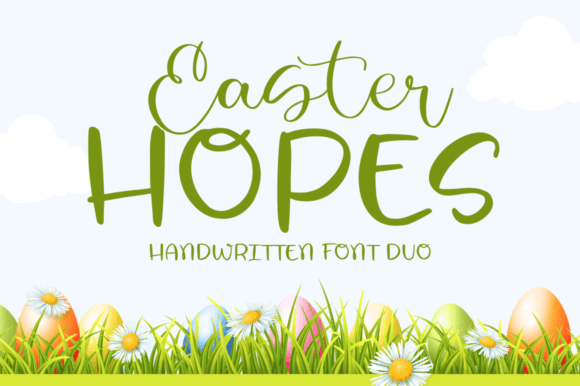
Easter Hopes Font: Elevate Your Designs with Whimsy and Elegance
Are you looking for a font that can add a touch of whimsy and elegance to your designs? Look no further than the Easter Hopes Font, a charming handwritten font duo that is perfect for a variety of projects. In this article, we’ll explore the features and benefits of Easter Hopes, and show you how to make the most of this beautiful font duo.
Introducing Easter Hopes Font
Easter Hopes is a handwritten font duo that consists of two complementary styles: a playful script font and a sophisticated handwritten font. This duo is designed to bring a touch of whimsy and elegance to your designs, making it perfect for a variety of projects, including invitations, cards, branding, and more.
The Easter Hopes Font duo is characterized by its unique and charming lettering style, which is both playful and sophisticated. The playful script font is perfect for adding a touch of whimsy to your designs, while the sophisticated handwritten font is ideal for creating elegant and refined designs.
Key Features of Easter Hopes Font
- Handwritten font duo: Easter Hopes consists of two complementary styles: a playful script font and a sophisticated handwritten font.
- Whimsical and elegant: The font duo is designed to bring a touch of whimsy and elegance to your designs.
- Perfect for various projects: Easter Hopes is suitable for a variety of projects, including invitations, cards, branding, and more.
- Playful and sophisticated: The font duo features a unique and charming lettering style that is both playful and sophisticated.
Benefits of Using Easter Hopes Font
There are many benefits to using Easter Hopes Font in your designs. Here are just a few:
- Adds a personal touch: Easter Hopes Font adds a delightful and personalized touch to your designs, ensuring that each design shines with character and charm.
- Versatile: The font duo is perfect for a variety of projects, from invitations and cards to branding and more.
- High-quality: The font duo is of high quality, with clear and crisp lettering that will look great in any design.
- Choose the font style: Choose the font style you want to use: the playful script font or the sophisticated handwritten font.
Tips for Getting the Most out of Easter Hopes Font
Here are some tips for getting the most out of Easter Hopes Font:
- Experiment with different font sizes: Experiment with different font sizes to find the one that works best for your design.
- Use the font duo together: Use the playful script font and the sophisticated handwritten font together to create a unique and interesting design.
- Add embellishments: Add embellishments, such as flowers or borders, to enhance your design.
- Use the font for branding: Use Easter Hopes Font for branding, such as creating a logo or business cards.
In conclusion, Easter Hopes Font is a charming handwritten font duo that is perfect for adding a touch of whimsy and elegance to your designs. With its unique and charming lettering style, Easter Hopes Font is suitable for a variety of projects, including invitations, cards, branding, and more. By following the tips outlined in this article, you can get the most out of Easter Hopes Font and create beautiful designs that shine with character and charm.
- What is Easter Hopes Font? Easter Hopes Font is a handwritten font duo that consists of two complementary styles: a playful script font and a sophisticated handwritten font.
- What is Easter Hopes Font used for? Easter Hopes Font is perfect for a variety of projects, including invitations, cards, branding, and more.